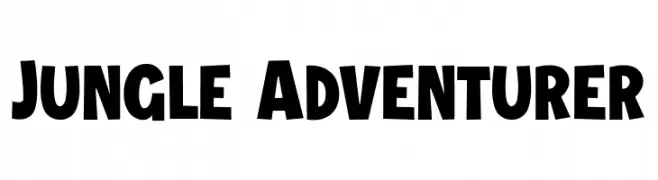
A bold, angular font with a shadow effect for dramatic visual impact.
A bold, geometric font with angular, futuristic styling.
A playful, casual handwritten font with smooth, flowing lines and moderate contrast.
A bold, expressive script font with a dynamic, handwritten style.
A bold, playful, hand-drawn font with a casual and informal style.
A rugged, hand-drawn font with a fantasy and adventure theme.
A bold, angular font with sharp serifs and a dynamic style.
A rugged, hand-drawn font with a bone-like appearance, perfect for adventurous themes.
A bold, adventurous font with a jungle-inspired theme.
A bold, textured font with a rocky, natural appearance.
A bold, rugged font with uneven, jagged edges for a distressed look.
A bold, nautical-themed font with playful, three-dimensional characters.
A bold, playful font with a rugged, adventurous style.
A bold, decorative font with a pirate-themed, adventurous style.
A bold, adventurous font with a nautical theme, featuring sharp edges and flowing curves.
A bold, adventurous font with a rugged, hand-drawn appearance.
A rugged, textured font with a handcrafted, wooden appearance.
A bold, distressed font with a rugged, industrial style.
A rugged, textured font with a hand-crafted, adventurous feel.
A bold, adventurous font with sharp serifs and a distressed appearance, perfect for pirate-themed projects.
Illustrative display font featuring climbers and mountaineering scenes.
A bold, dynamic font with a climber motif integrated into each character.
A playful font featuring monkey silhouettes integrated into bold, blocky characters.